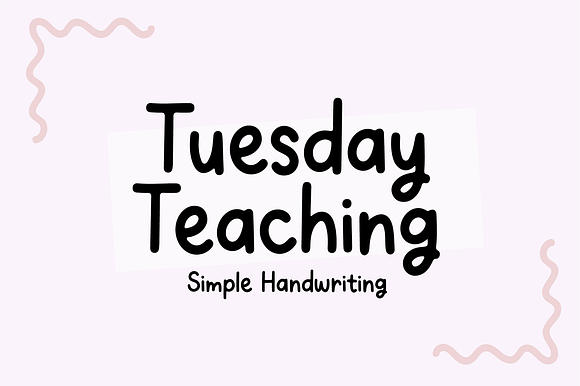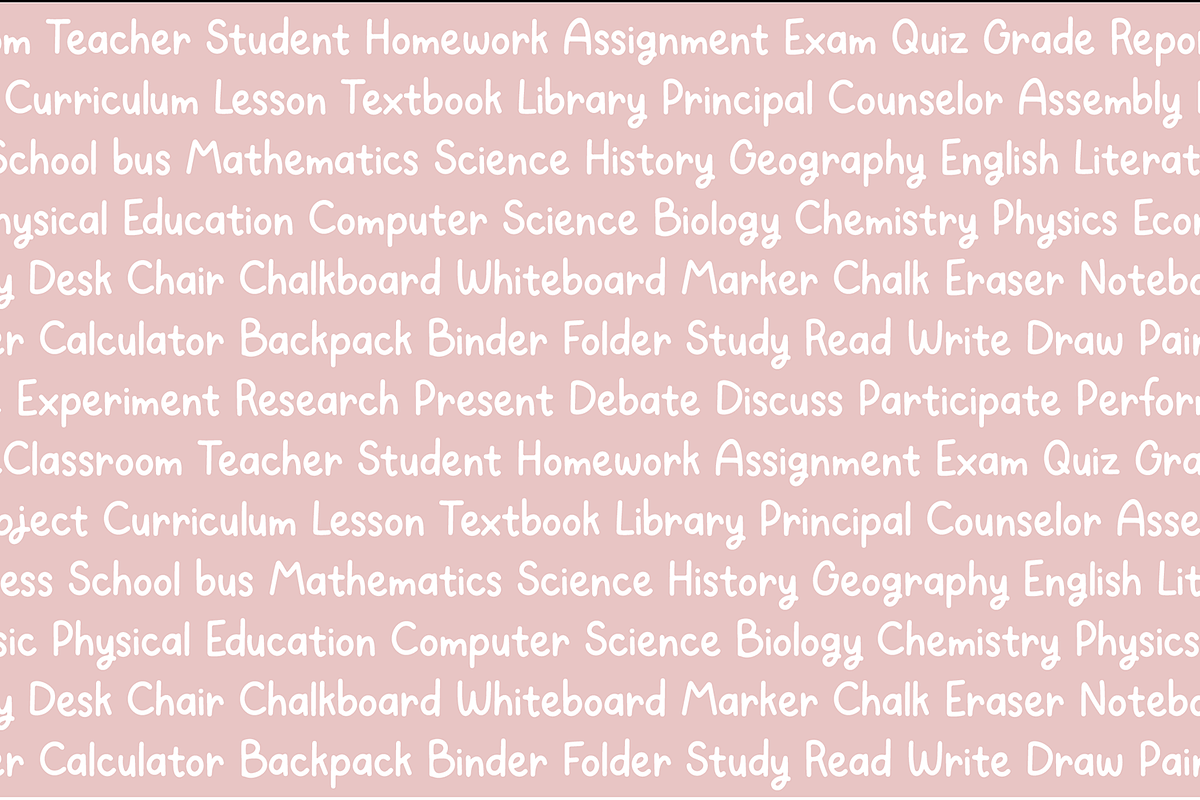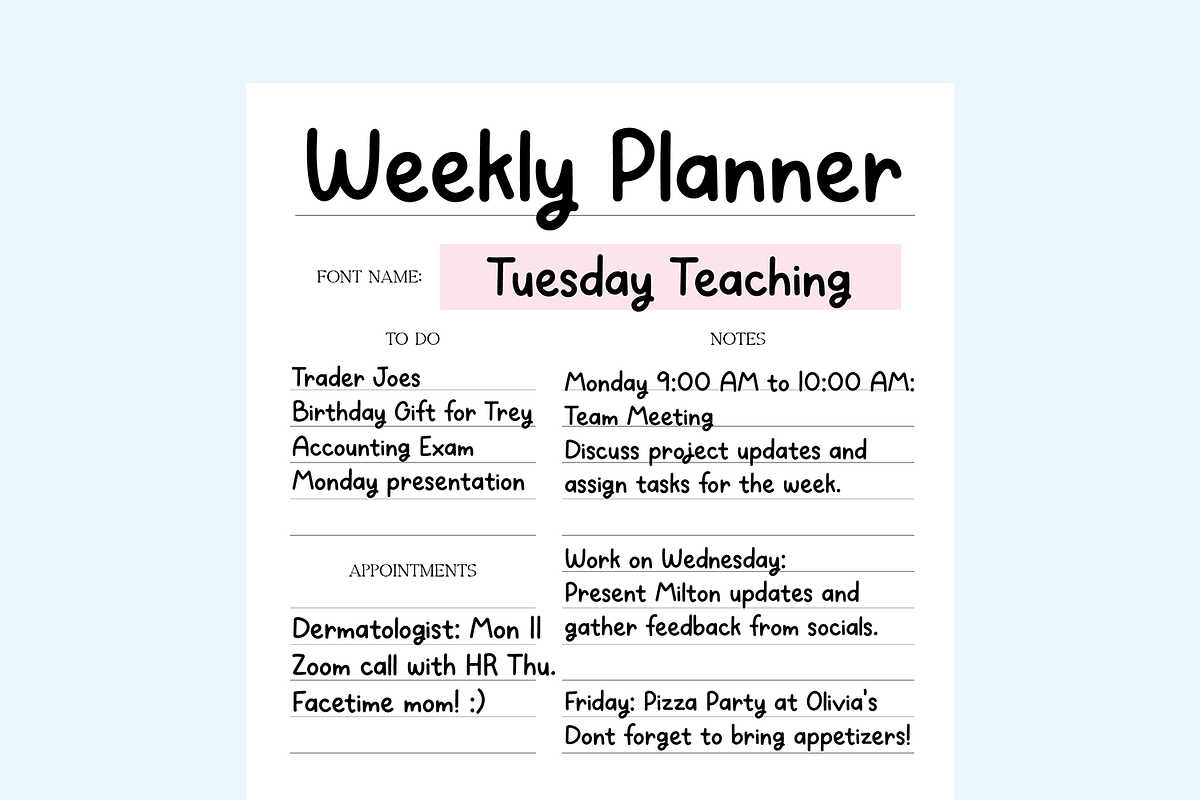
TUESDAY TEACHING Simple Handwriting
Why TUESDAY TEACHING Simple Handwriting is worth a look
TUESDAY TEACHING Simple Handwriting by Blush Font Co. fits naturally into Branding, posters, packaging, typography.